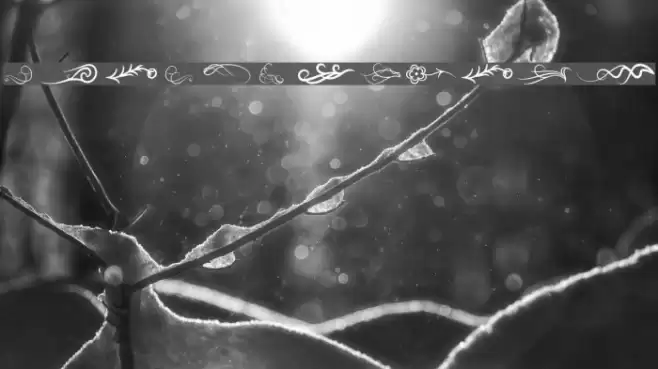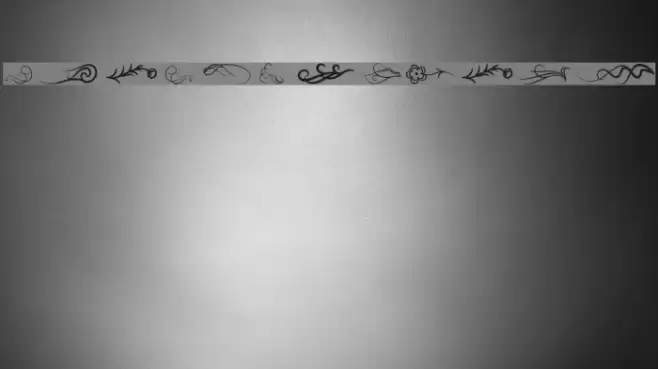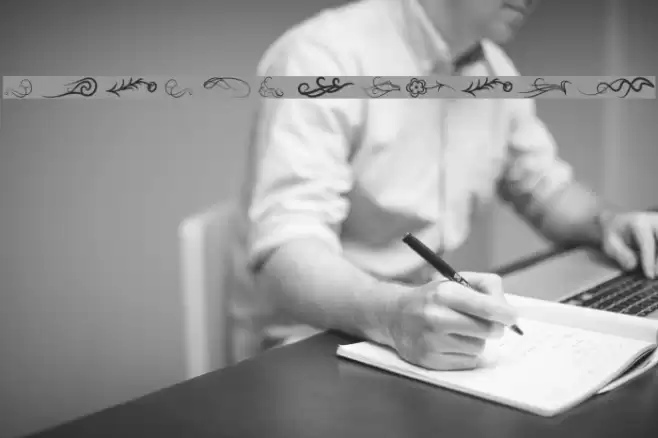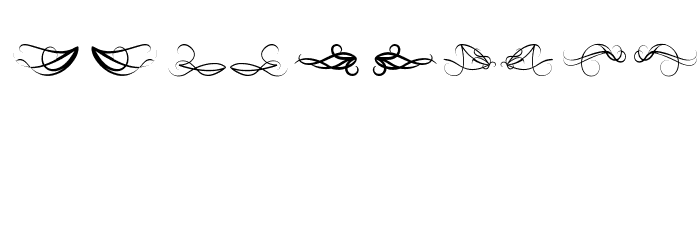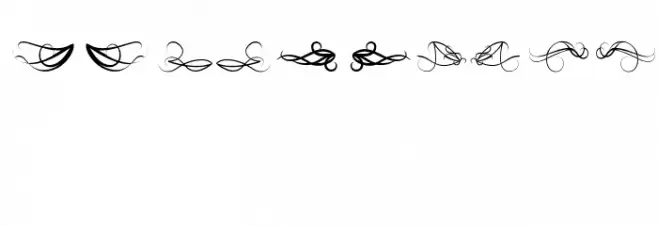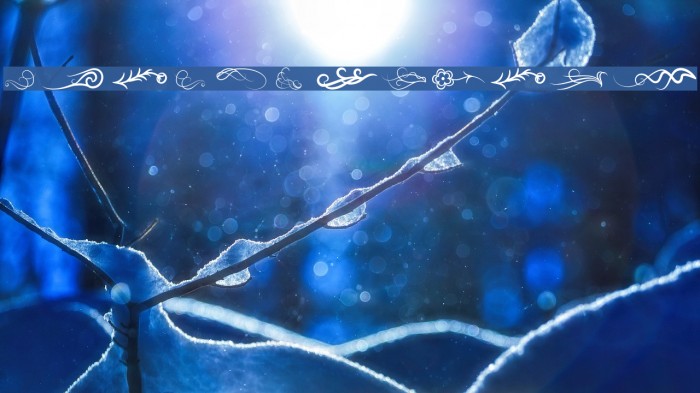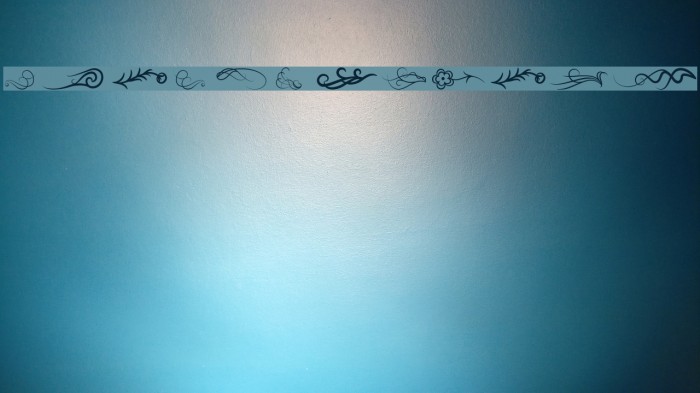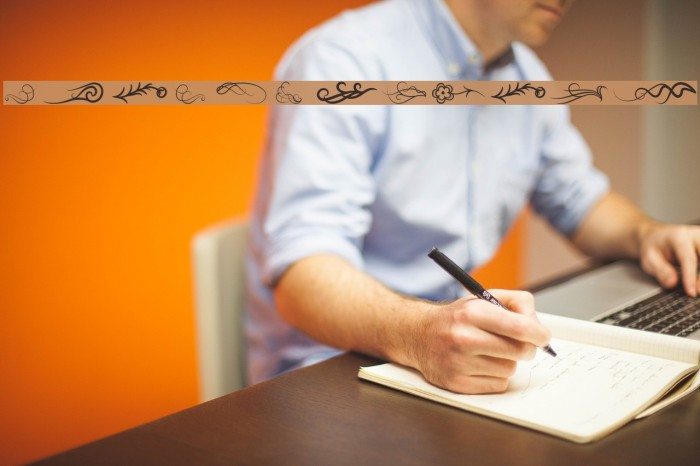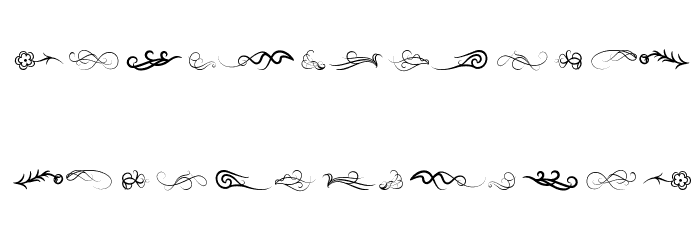
Wind of Change Font
Wind of Change Description
This is not a traditional font but rather a collection of decorative elements and flourishes. The design features intricate swirls and floral motifs, creating an ornamental and artistic appearance. These elements are likely intended for embellishing designs rather than forming words or sentences. The style is highly decorative, with an emphasis on elegance and complexity, suitable for adding a touch of sophistication to various projects.
A collection of decorative flourishes and motifs for embellishment from Dingbats fonts.
- Proposed Projects: Ideal for invitations, greeting cards, decorative borders, and artistic projects requiring ornamental designs.
- Use Case: Decorative elements for design embellishment.